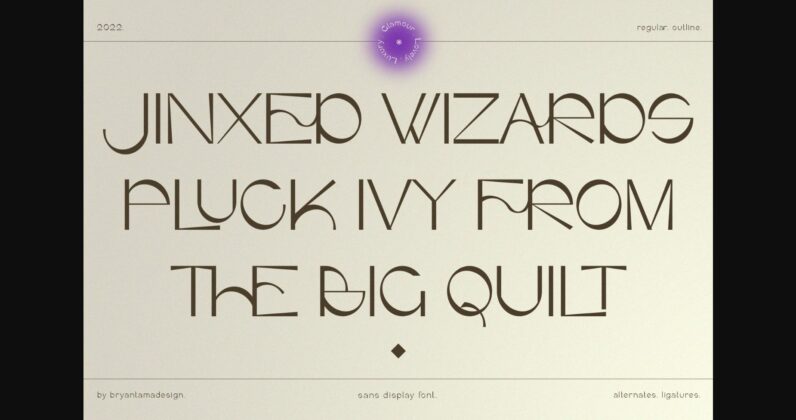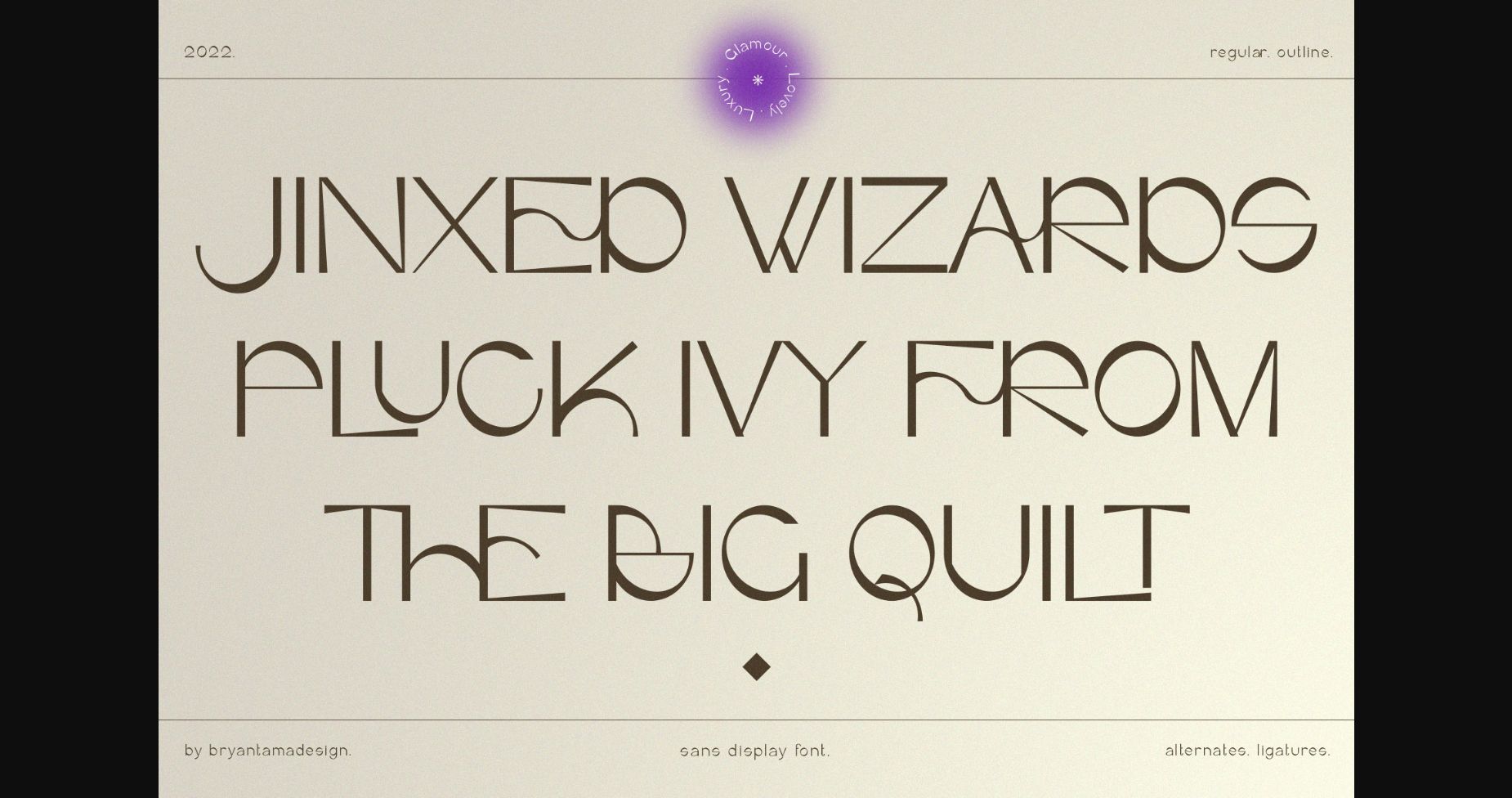
About Mofela Font
Mofela is an elegant and modern sans display font. It is inspired by a luxury theme with magical feels that makes the font has a unique personality, you can use it for branding, social media, posters, packaging, & more. This font is PUA encoded which means you can access all of the amazing glyphs and ligatures with ease!